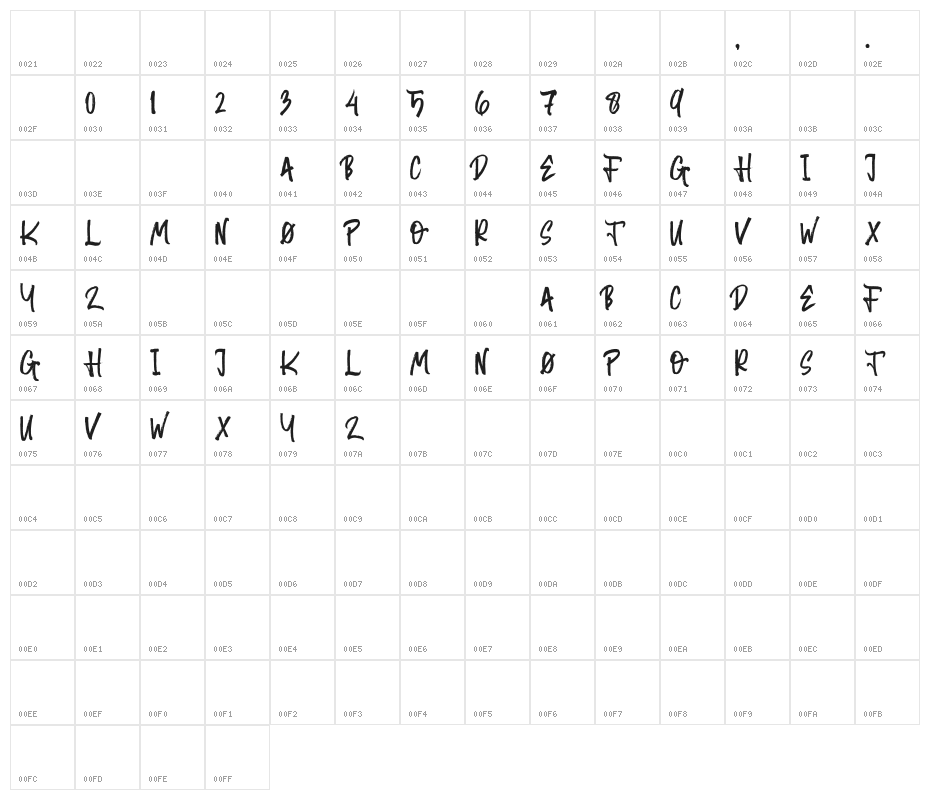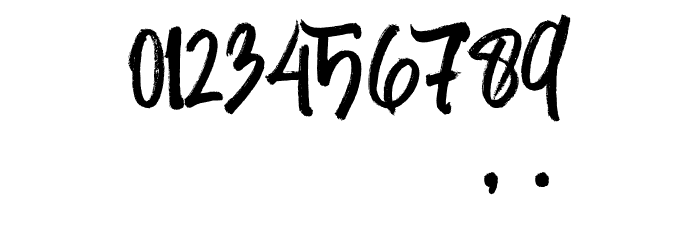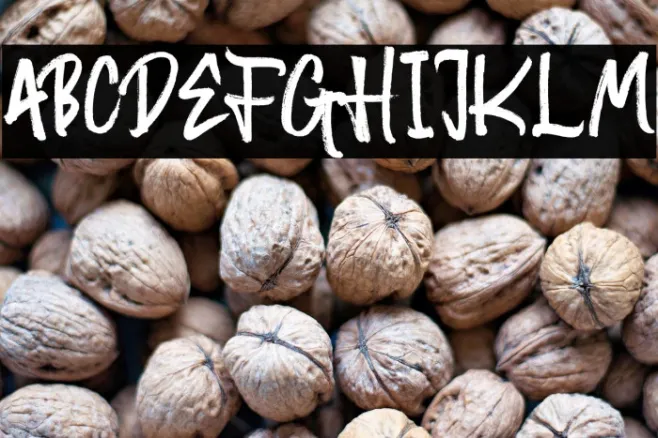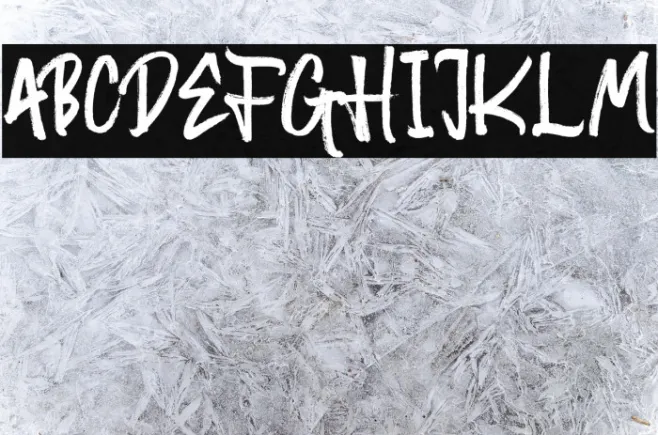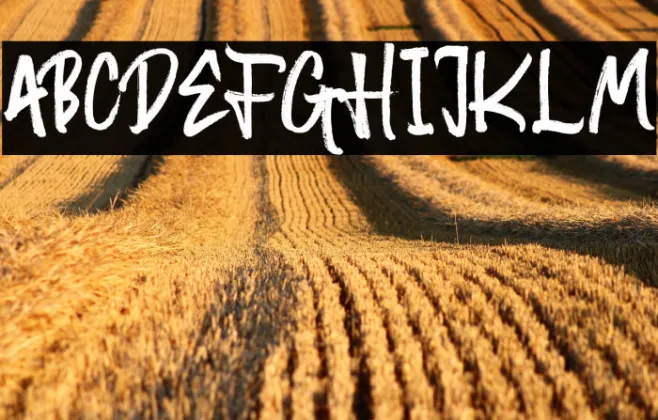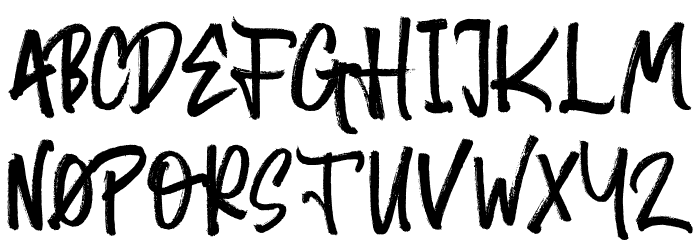
RandomBrush Font
RandomBrush Description
This font features a bold, expressive brush style that conveys a sense of energy and dynamism. The strokes are thick and uneven, giving it a hand-painted appearance that is both artistic and informal. The uppercase and lowercase letters maintain a consistent style, with a slight slant that adds to the casual feel. The numbers and special characters are equally bold, ensuring a cohesive look across all elements. This font is ideal for projects that require a personal touch or a creative flair, such as posters, invitations, or branding materials.
| Use Case | Headlines, Logos, Artistic designs |
| Proposed Projects | Ideal for creative projects like posters, invitations, branding, and artistic designs. |